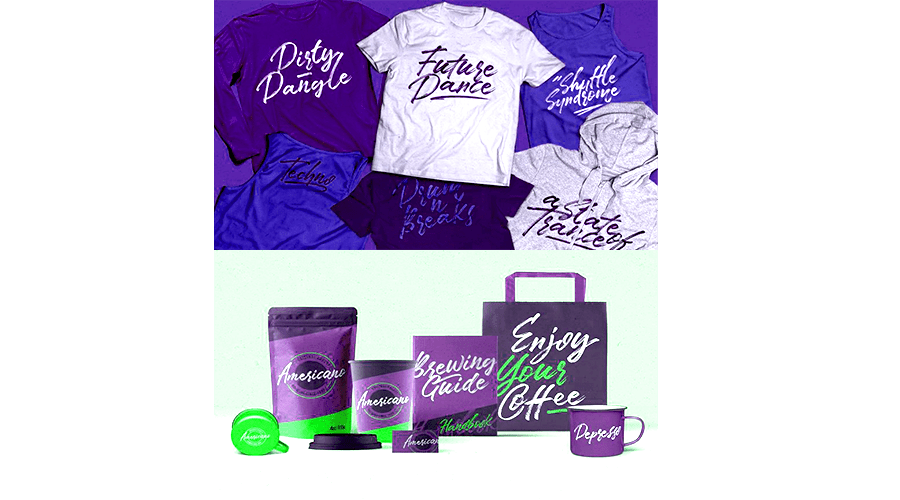
TakeEasy Brush Font
TakeEasy Brush Font is a brush font that is designed to be used dry. Letterhend created it and shared it on August 16, 2018.
TakeEasy Brush Font is a hand-drawn typeface that adds a personal touch to any creative needs. It also supports uppercase and lowercase letters, punctuation, symbols and numerals, style set alternates, ligatures, and therefore more. This font features a unique OpenType feature that makes it possible to create an underlining swash by typing underscore twice or more in the middle of a sentence.
TakeEasy Brush Font is helpful for various projects, including logos, clothes, company branding, signatures, and anything else you can think of. The font frequently used in packaging work, as tea packet packaging or any other food product packaging. The stunning font is also suitable for use in cup or mug designing. The font also used in the t-shirt design.